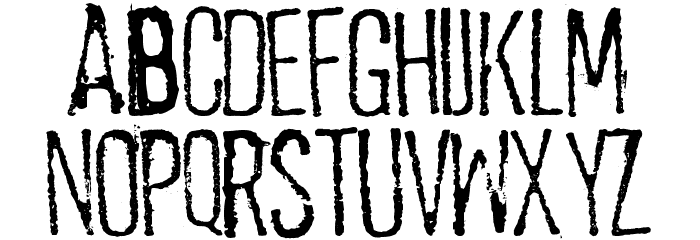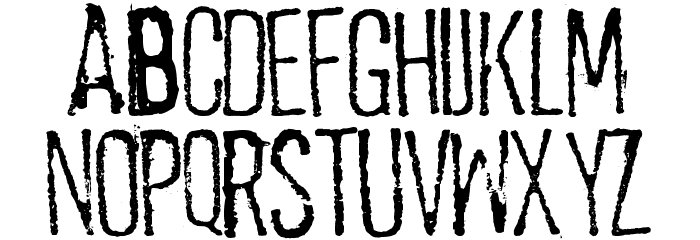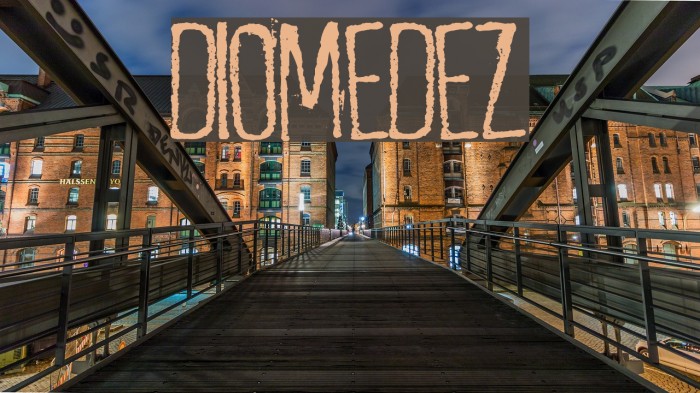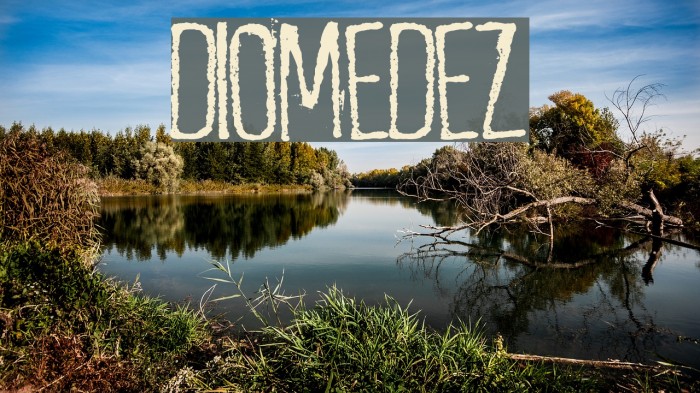
diomedez Font
This font features a distressed, grunge style with a textured appearance, giving each letter a worn and rugged look. The uppercase letters are bold and impactful, while the lowercase letters maintain a consistent style. The font's irregular edges and rough texture create a sense of movement and energy, making it ideal for designs that require a raw, edgy aesthetic. The characters are slightly condensed, enhancing their bold presence. This font is perfect for projects that aim to convey a sense of rebellion or nonconformity, such as music album covers, posters, or urban-themed designs.
A distressed, grunge-style font with a textured, rugged appearance.
- Proposed Projects: Music album covers, posters, urban-themed designs, rebellious branding.
- Overall Style: Grunge, Edgy, Raw